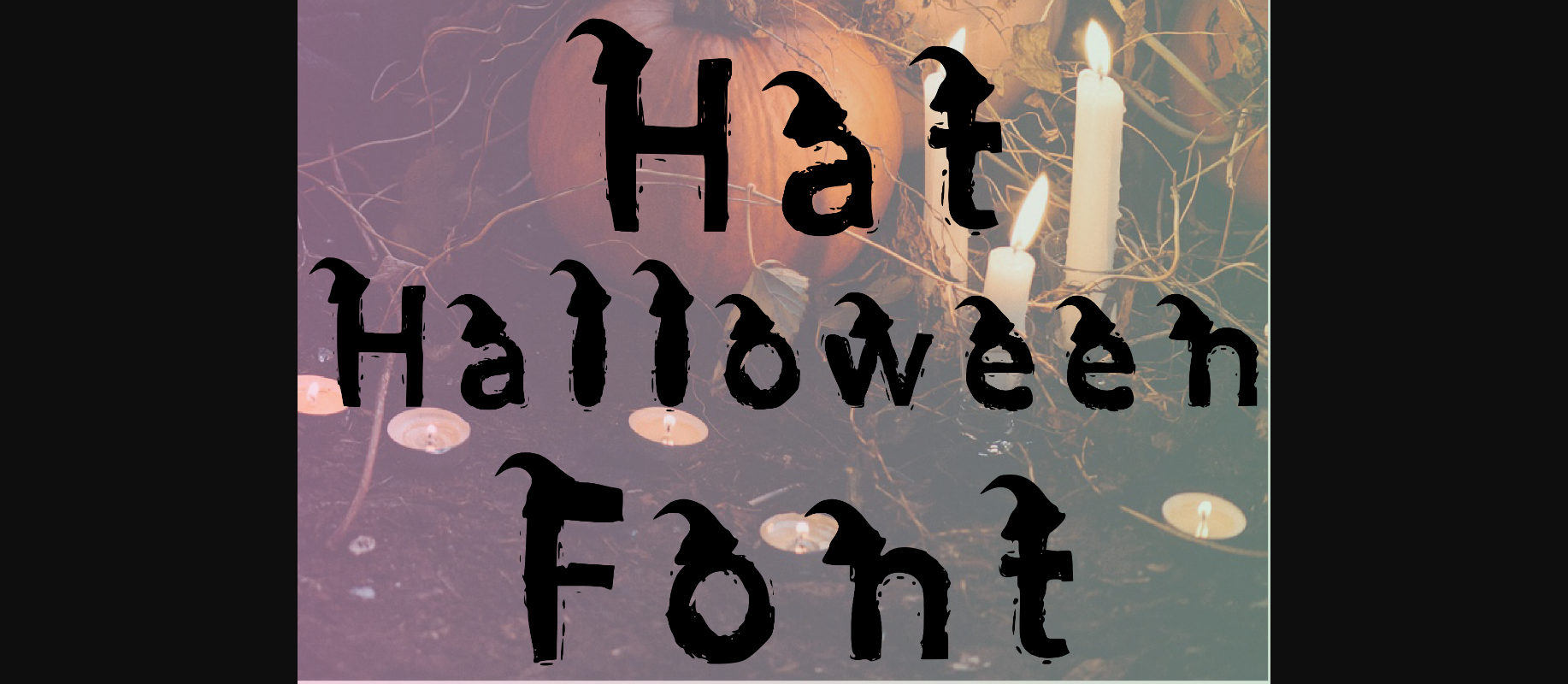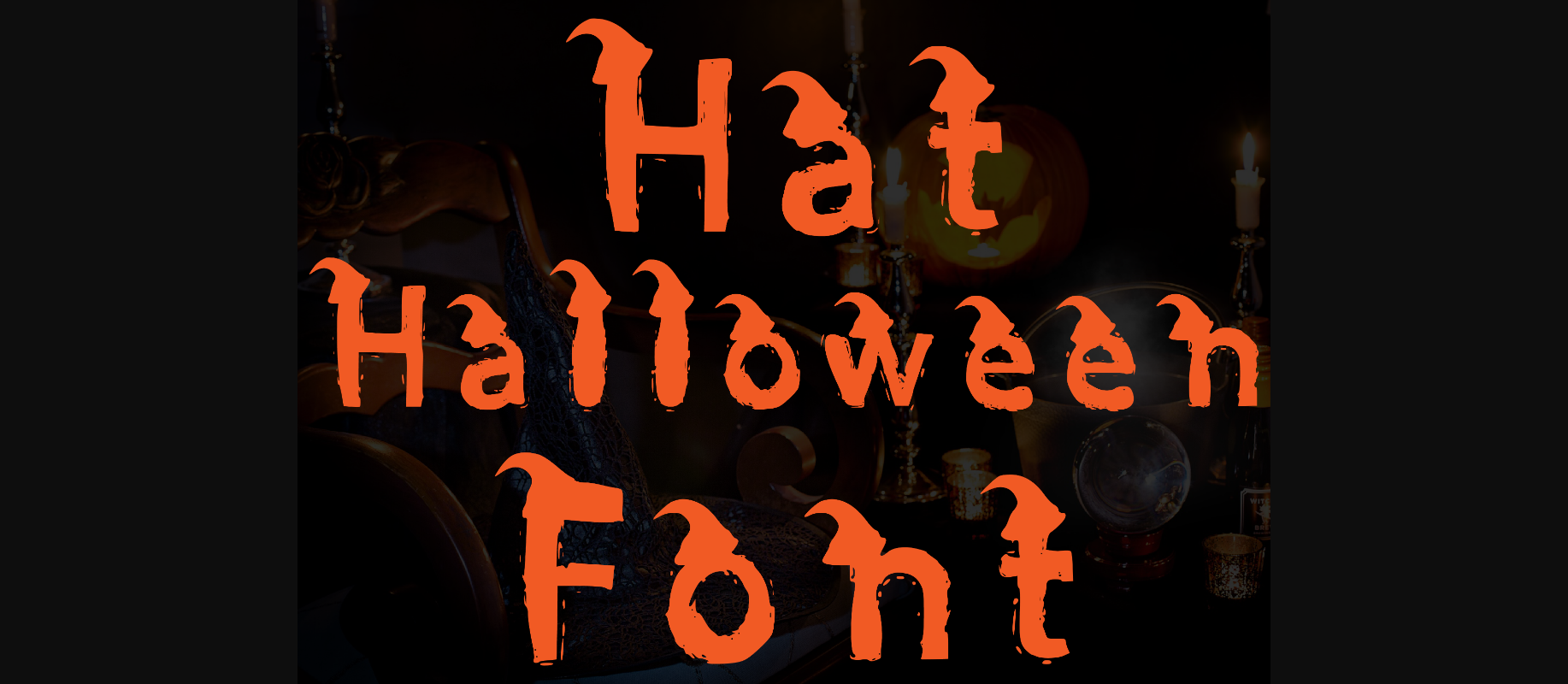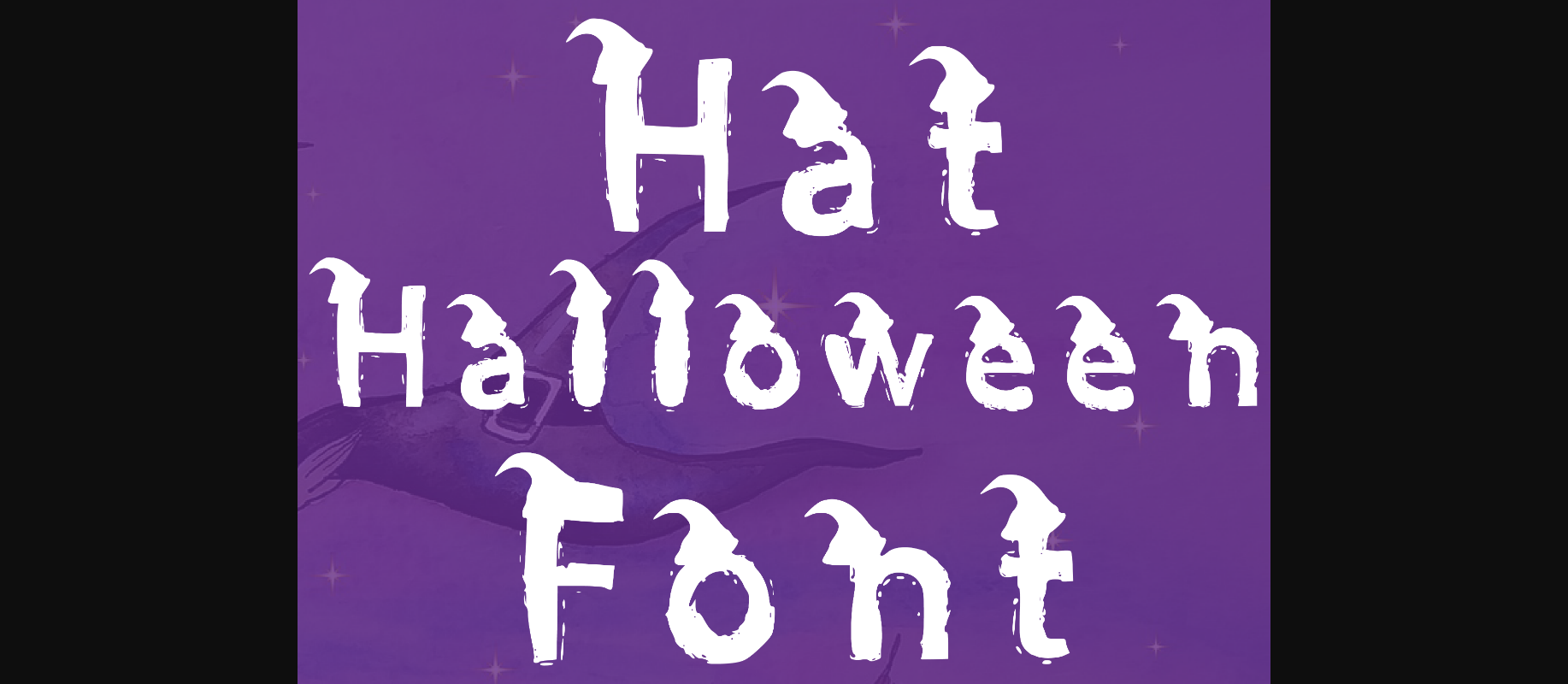
Hat Halloween Font
About Hat Halloween Font
This is a new font inspired by the traditional hats that people wear during autumn or Halloween.
This font is a fun and festive way to dress up your walls. It’s cute but still serious enough to be used in a wedding invitation or Christmas cards.